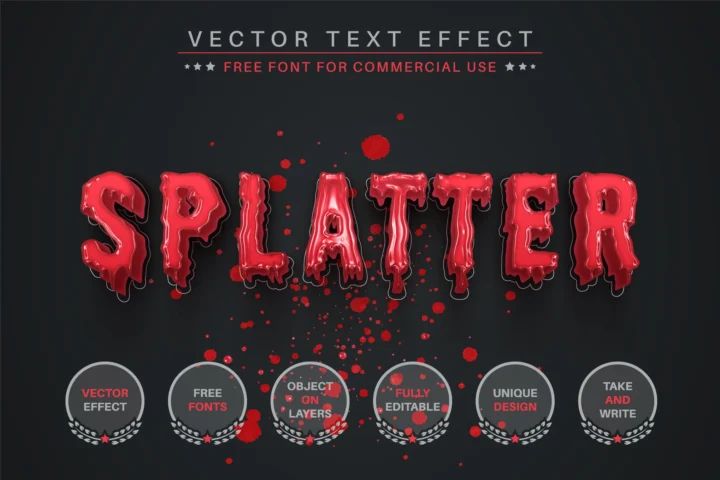
Splatter Blood – Editable Text Effect Font Style
Splatter Blood. Hello! I’m happy to introduce my new text effect “Splatter”. Just write your word and the effect will apply! Be as creative as you like to be in expressing yourself using this unique “Splatter”. Effect is perfect for any project that needs a unique handy touch whatever else your imagination leads you to!